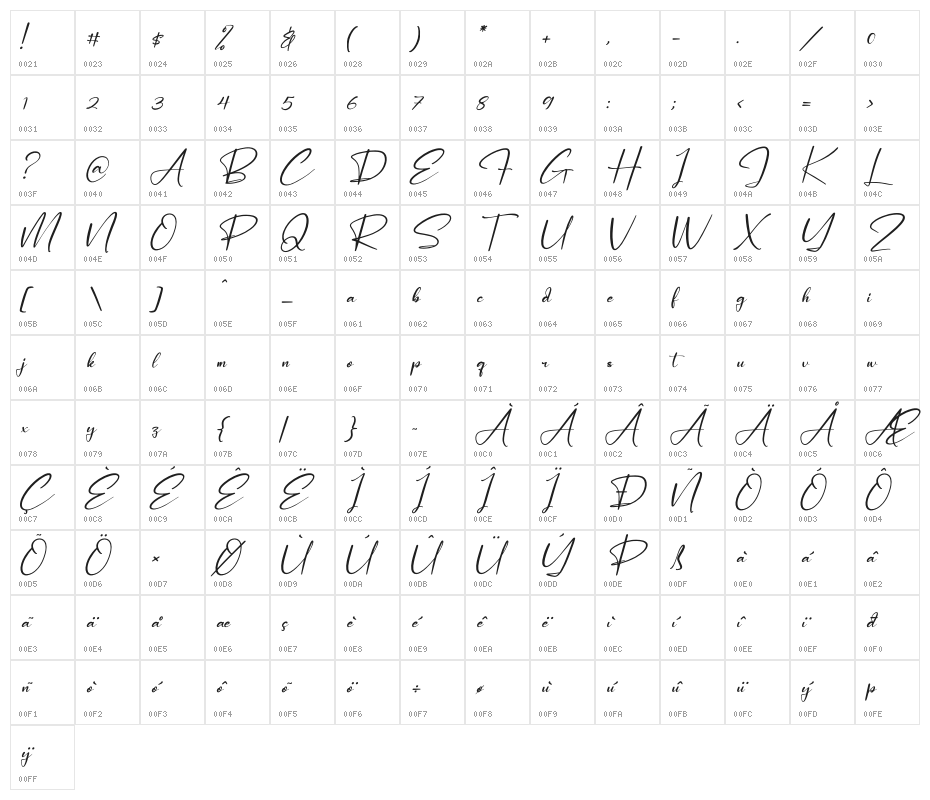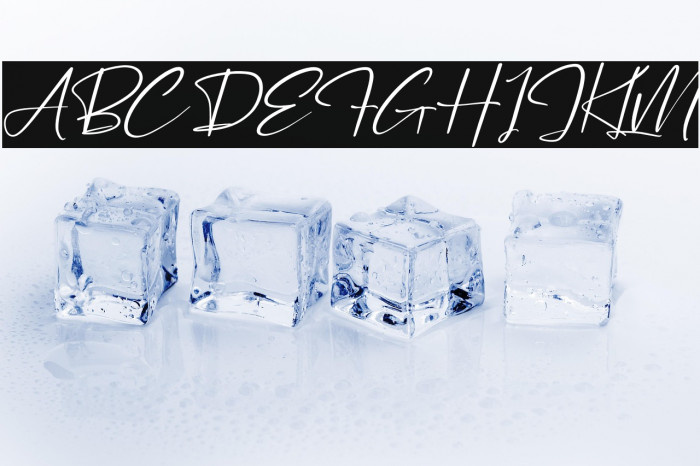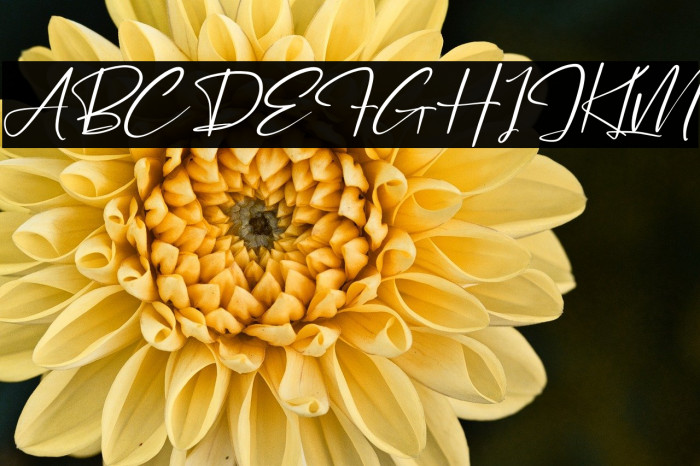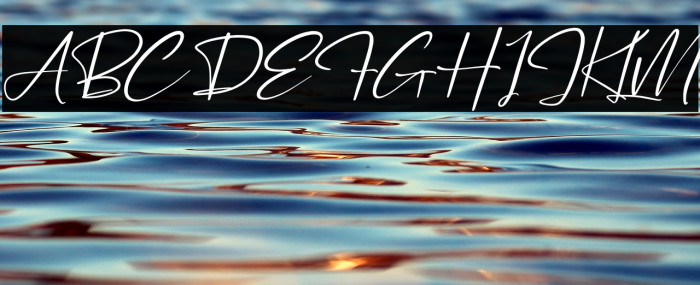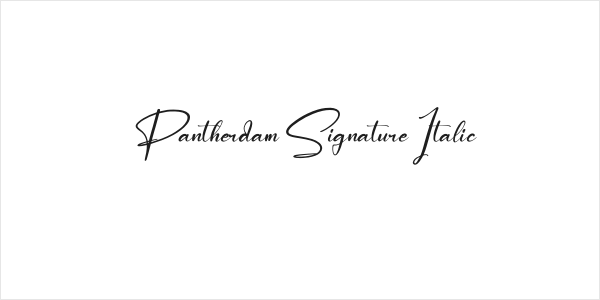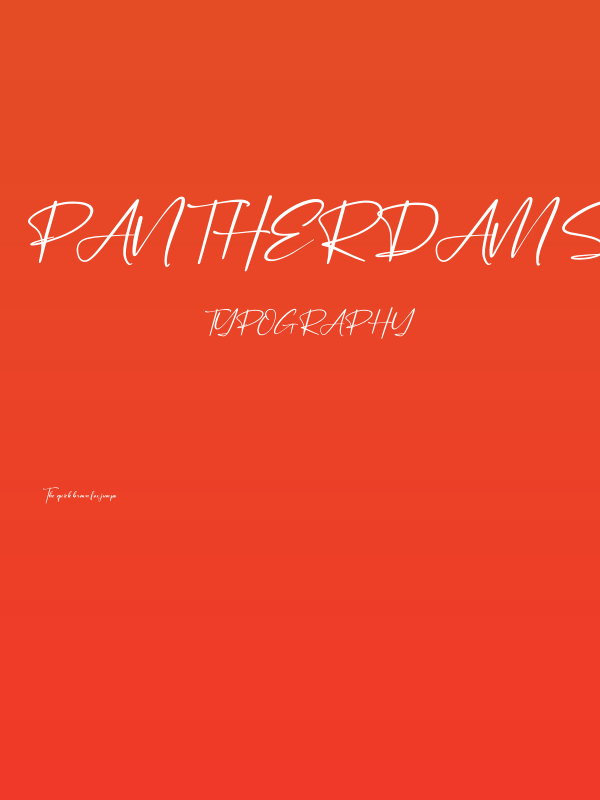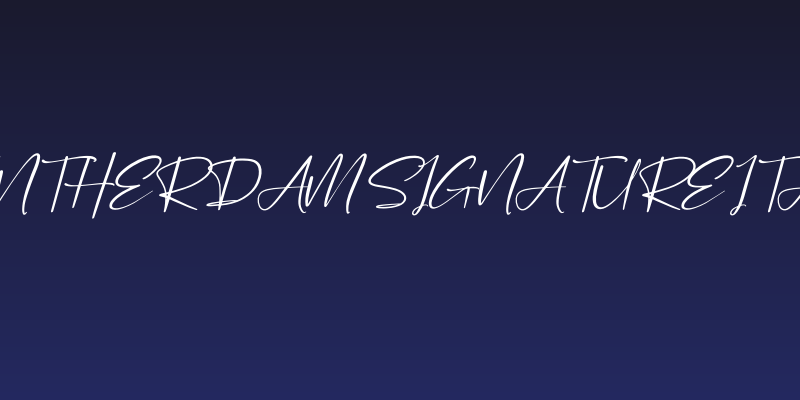
Pantherdam Signature Italic Font
Pantherdam Signature Italic Description
This font exudes elegance and sophistication with its fluid, cursive style. The letters are gracefully connected, mimicking the natural flow of handwriting. Each character is crafted with a slight slant, enhancing its italic nature. The strokes are smooth and consistent, with moderate contrast that adds to its legibility and charm. The uppercase letters are bold and prominent, while the lowercase letters maintain a delicate balance, offering a harmonious blend. The numerals and special characters are designed with the same attention to detail, ensuring a cohesive appearance across all elements. This font is perfect for projects that require a personal touch, such as invitations, branding, and signature logos.
| Overall Style | Elegant, Handwritten |
| Proposed Projects | Ideal for wedding invitations, personal branding, and signature-style logos. |